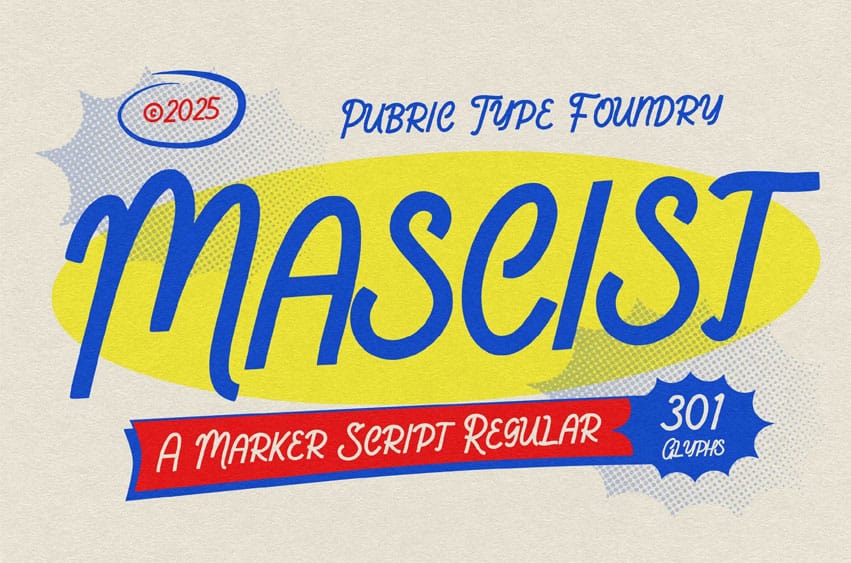
Mascist Font
Mascist Font is a hand-drawn marker font with expressive curves and relaxed strokes. It delivers a playful and casual vibe—perfect for posters, product packaging, and designs that want a personal, laid-back touch.
Ideal for headlines, logos, editorials, packaging, quotes, films, games, album covers, books, and promotional materials. This font ensures your design stands out in any setting.